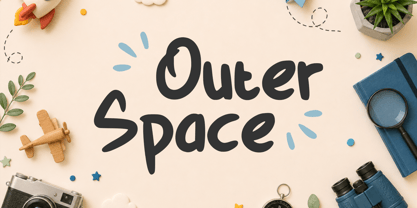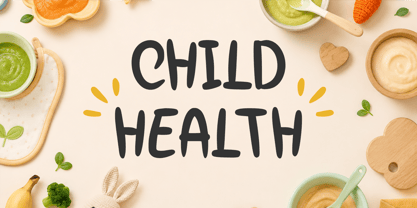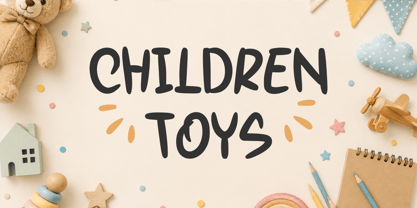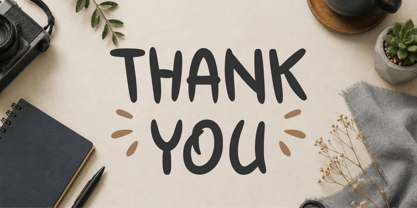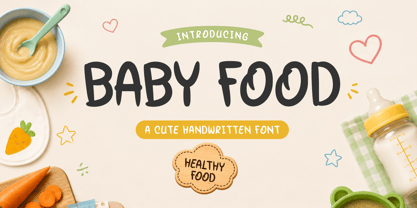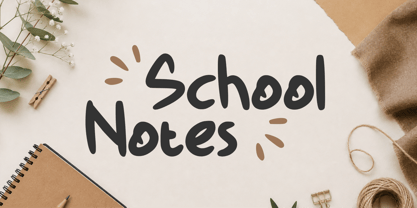
Baby Food
Baby Food – Cute Handwritten Font is a fun, playful, and charming handwritten display font designed to bring a warm and cheerful personality to your creative projects. With its bold, rounded shapes and natural hand-drawn feel, Baby Food is perfect for designs that need a friendly, youthful, and approachable look.
Ideal for baby products, children’s books, kids’ branding, food packaging, nursery designs, menus, labels, posters, invitations, stickers, social media graphics, and playful logos. Its expressive character also works beautifully for school projects, children’s activities, cute merchandise, and creative advertising.
Baby Food is a great choice when you want your typography to feel cute, joyful, handmade, and memorable.